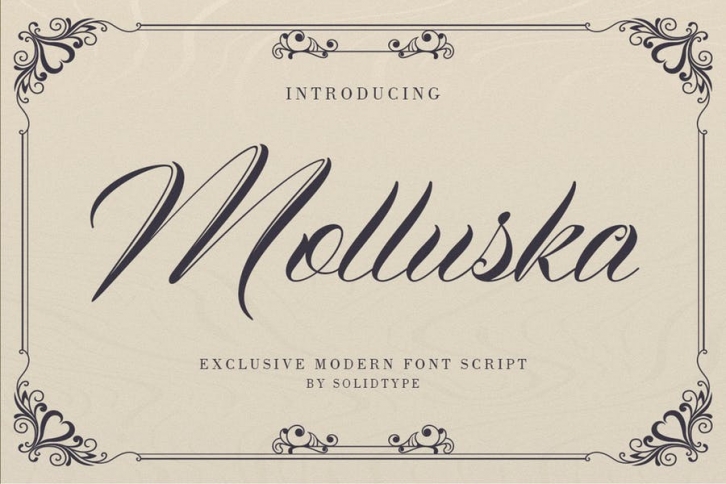
Introducing Molluska Script, a calligraphy script font that comes with a very beautiful character change, a kind of classic tattoo decorative script with a modern twist, the classic style is very suitable to be applied in various formal forms such as invitations, labels, restaurant menus, logos, fashion, make up, stationery , novels, magazines, books, greeting / wedding cards, packaging, labels or any type of advertising purposes.